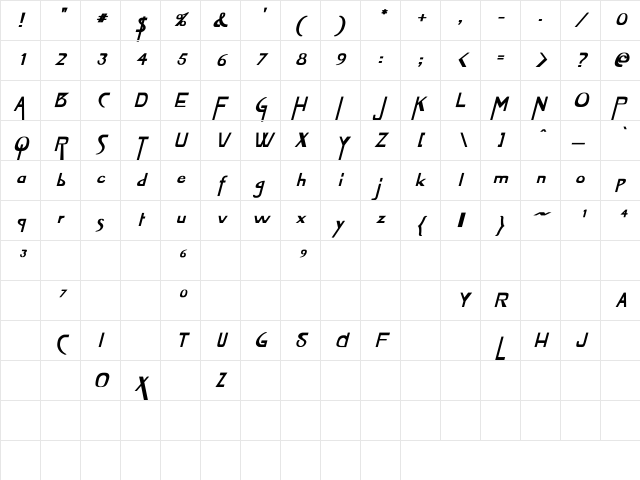
VireoFont Bold Italic Regular Free Font
VireoFont Bold Italic Regular
Design Context for VireoFont Bold Italic
VireoFont Bold Italic is a composed and adaptable typeface that performs quietly and consistently across a wide range of design contexts. The slanted form adds forward momentum and visual energy. Its bold stroke weight gives it real presence on the page.